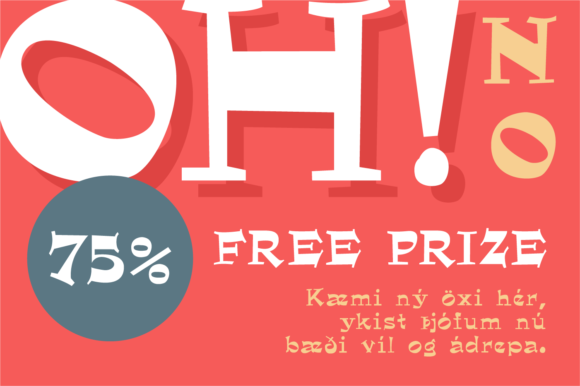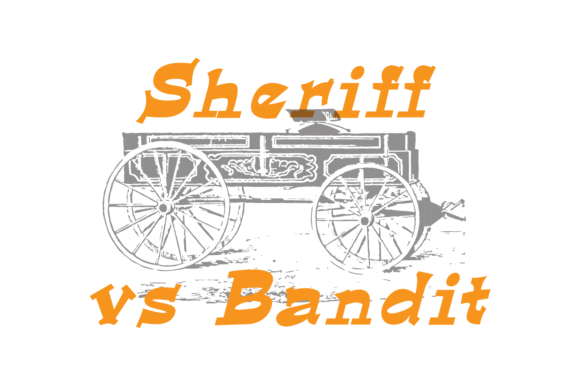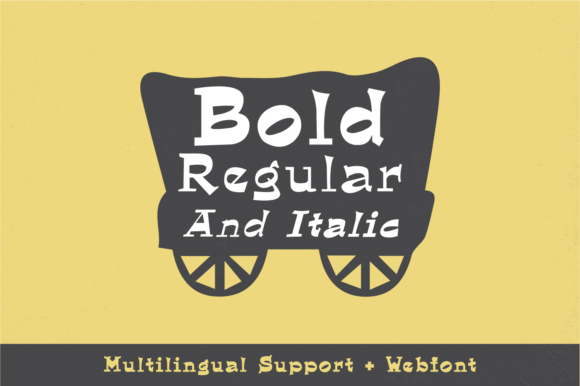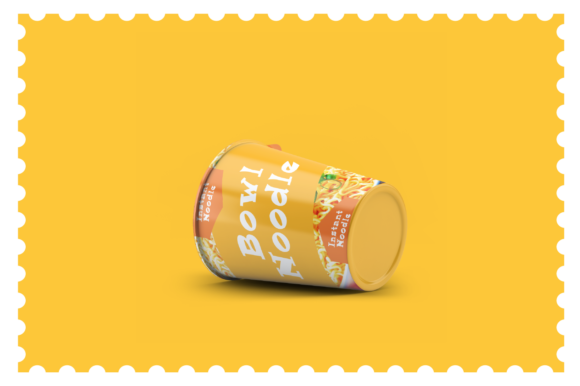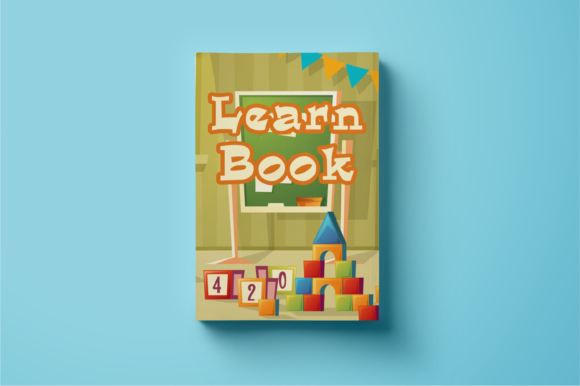
Discover the Charm of El Dorado Font: A Retro Wild West-Inspired Typeface
Are you a designer or crafter looking to add a touch of nostalgia and playfulness to your projects? Look no further than the El Dorado font, a retro typeface inspired by the wild west. With its cheerful, kids-like feel, this font is perfect for creating eye-catching designs that evoke a sense of adventure and freedom.
The Story Behind El Dorado Font
The El Dorado font is a carefully crafted typeface that draws inspiration from the rugged, lawless spirit of the American wild west. Its unique design combines the bold, adventurous feel of classic western fonts with a playful, approachable vibe that’s perfect for designs that need a little extra personality.
Whether you’re creating a logo, poster, or packaging design, the El Dorado font is a great choice for adding a vintage touch to your work. Its distinctive lettering style, complete with subtle imperfections and rough edges, gives it a charmingly handmade feel that’s sure to capture the attention of your audience.
Key Features of El Dorado Font
So what sets the El Dorado font apart from other typefaces? Here are just a few of its key features:
- Retro Wild West Inspiration: The El Dorado font is deeply rooted in the aesthetic of the American wild west, with a bold, adventurous feel that’s perfect for designs that need a little extra grit and charm.
- Cheerful, Kids-Like Feel: Despite its rugged inspiration, the El Dorado font has a playful, approachable vibe that’s perfect for designs that need to appeal to a younger audience.
- Vintage Touch: With its subtle imperfections and rough edges, the El Dorado font has a charmingly handmade feel that’s perfect for adding a touch of nostalgia to your designs.
- Highly Versatile: Whether you’re creating a logo, poster, or packaging design, the El Dorado font is a highly versatile typeface that can be used in a wide range of applications.
How to Use El Dorado Font in Your Designs
So how can you start using the El Dorado font in your designs? Here are a few ideas to get you started:
- Create a Vintage-Style Logo: Use the El Dorado font to create a logo that evokes the spirit of the wild west. Perfect for saloons, general stores, or other businesses that want to tap into a sense of nostalgia and adventure.
- Design a Retro-Style Poster: Add a touch of vintage charm to your posters with the El Dorado font. Perfect for promoting events, products, or services that need a little extra personality.
- Add a Personal Touch to Your Packaging: Use the El Dorado font to add a personal touch to your packaging designs. Perfect for small businesses or crafters who want to stand out from the crowd.
Tips for Getting the Most Out of El Dorado Font
Here are a few tips for getting the most out of the El Dorado font:
- Experiment with Different Colors: The El Dorado font looks great in a wide range of colors, from bold and bright to muted and pastel. Experiment with different color schemes to find the one that works best for your design.
- Play with Font Sizes: The El Dorado font is highly versatile and can be used at a wide range of font sizes. Experiment with different sizes to find the one that works best for your design.
- Combine with Other Fonts: The El Dorado font pairs well with a wide range of other fonts, from bold and modern to elegant and script. Experiment with different font combinations to find the one that works best for your design.
The El Dorado font is a unique and versatile typeface that’s perfect for designers and crafters who want to add a touch of nostalgia and playfulness to their projects. With its retro wild west inspiration, cheerful kids-like feel, and vintage charm, this font is sure to capture the attention of your audience and leave a lasting impression.